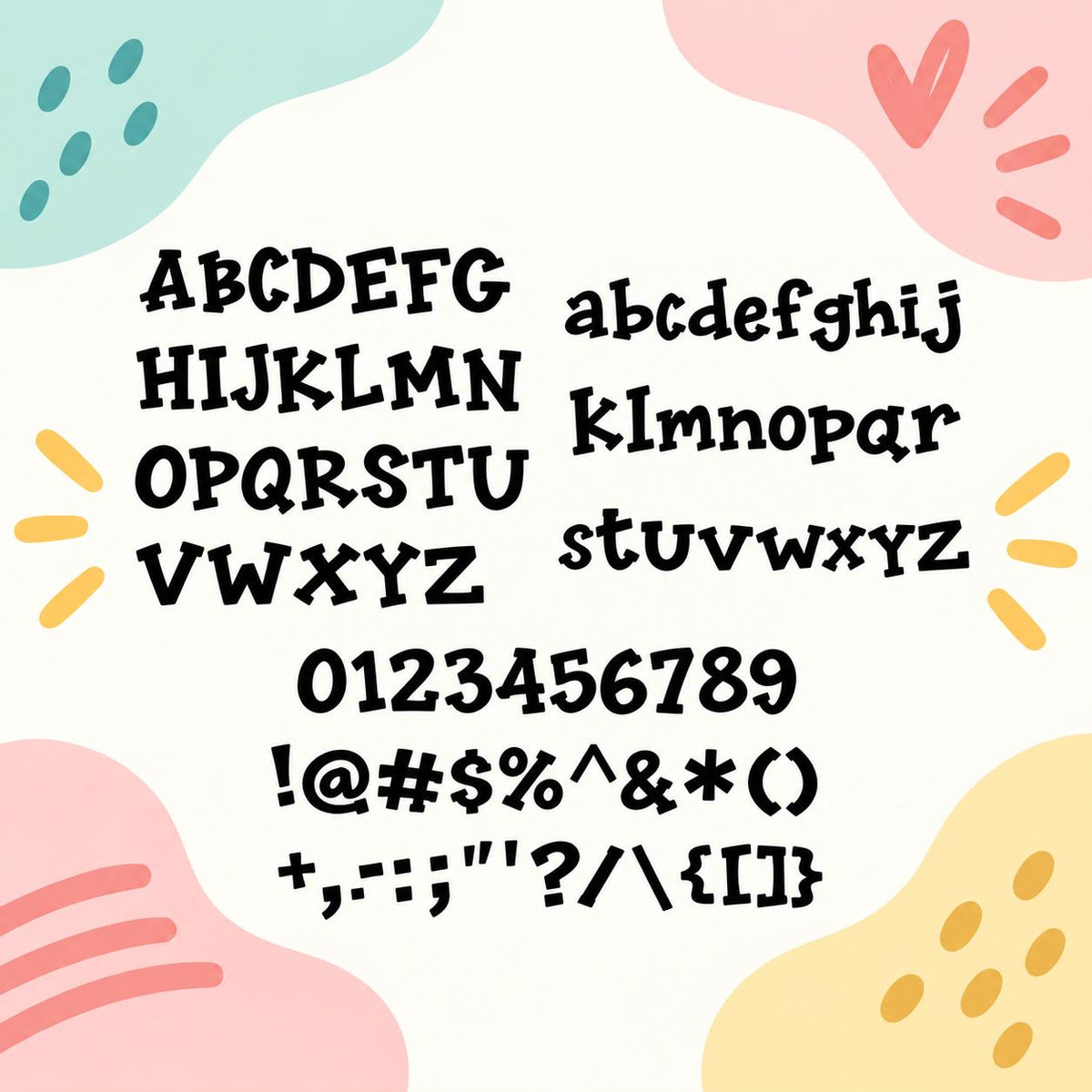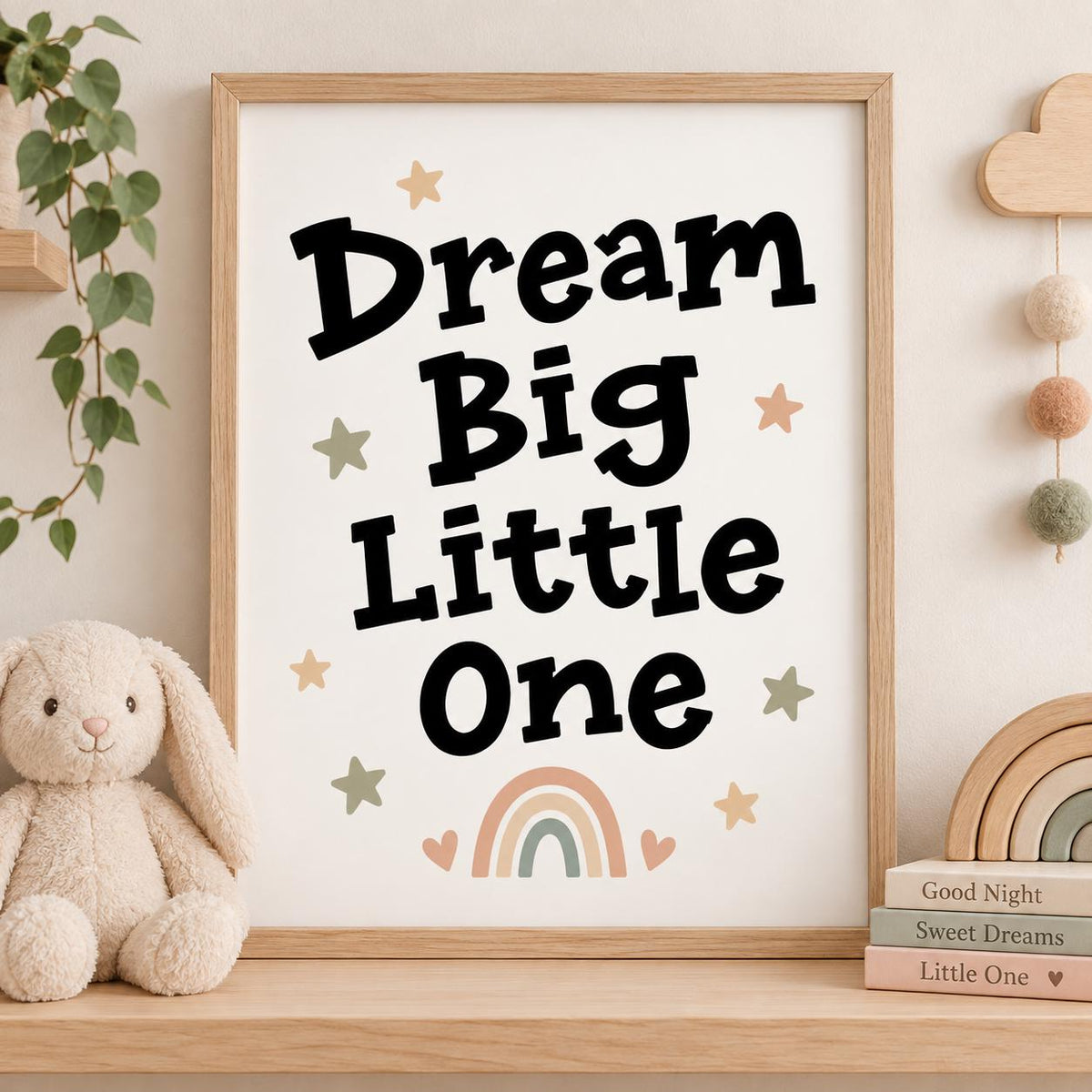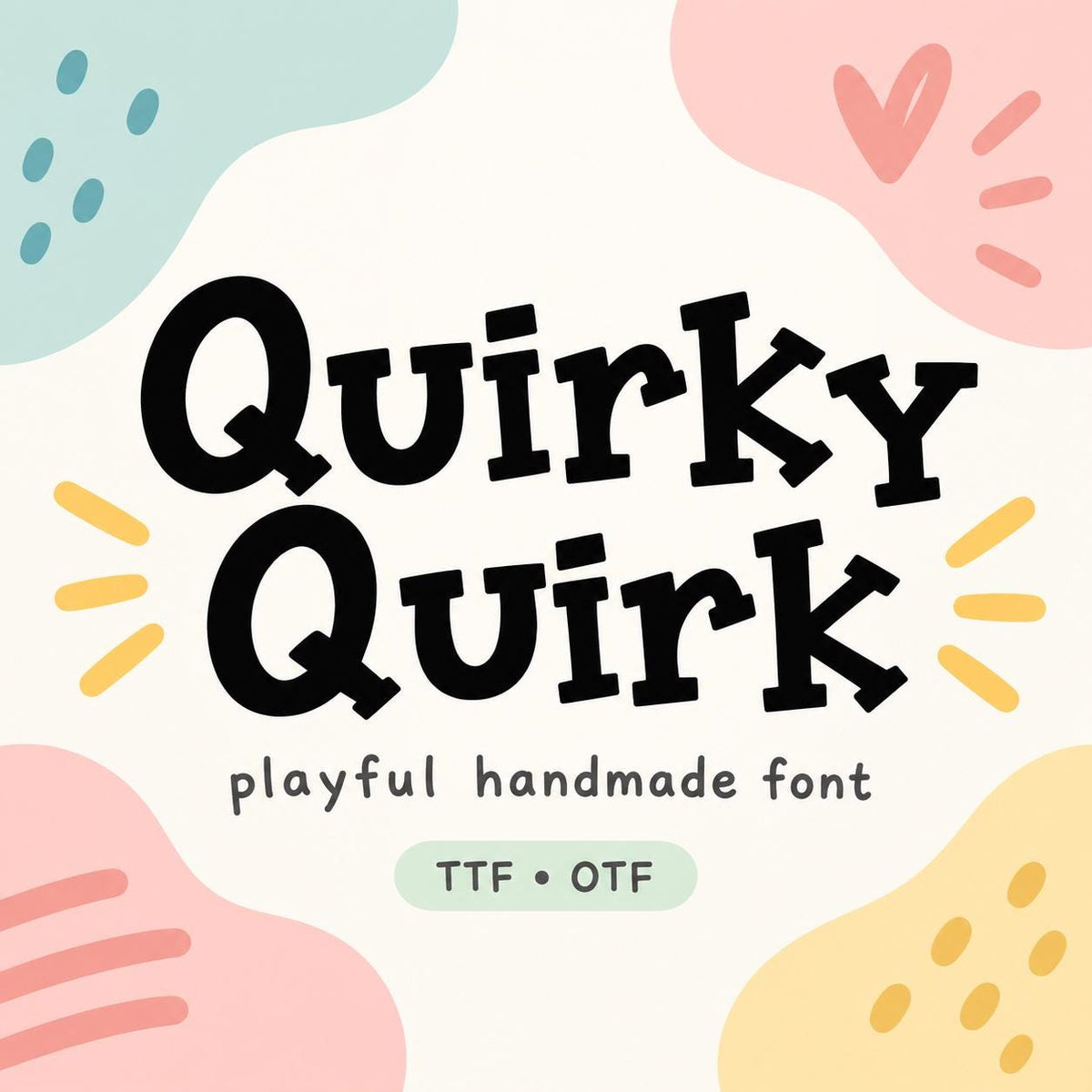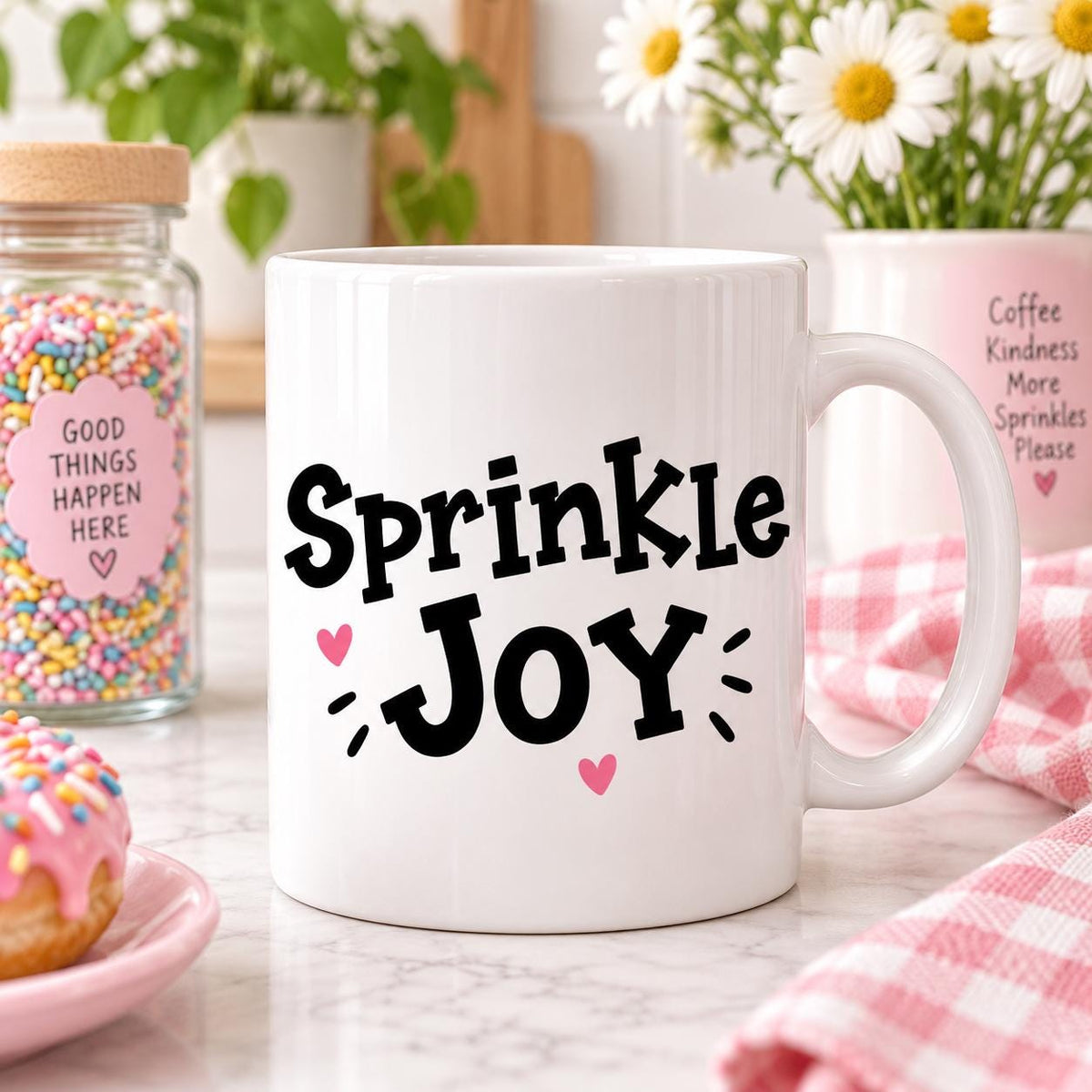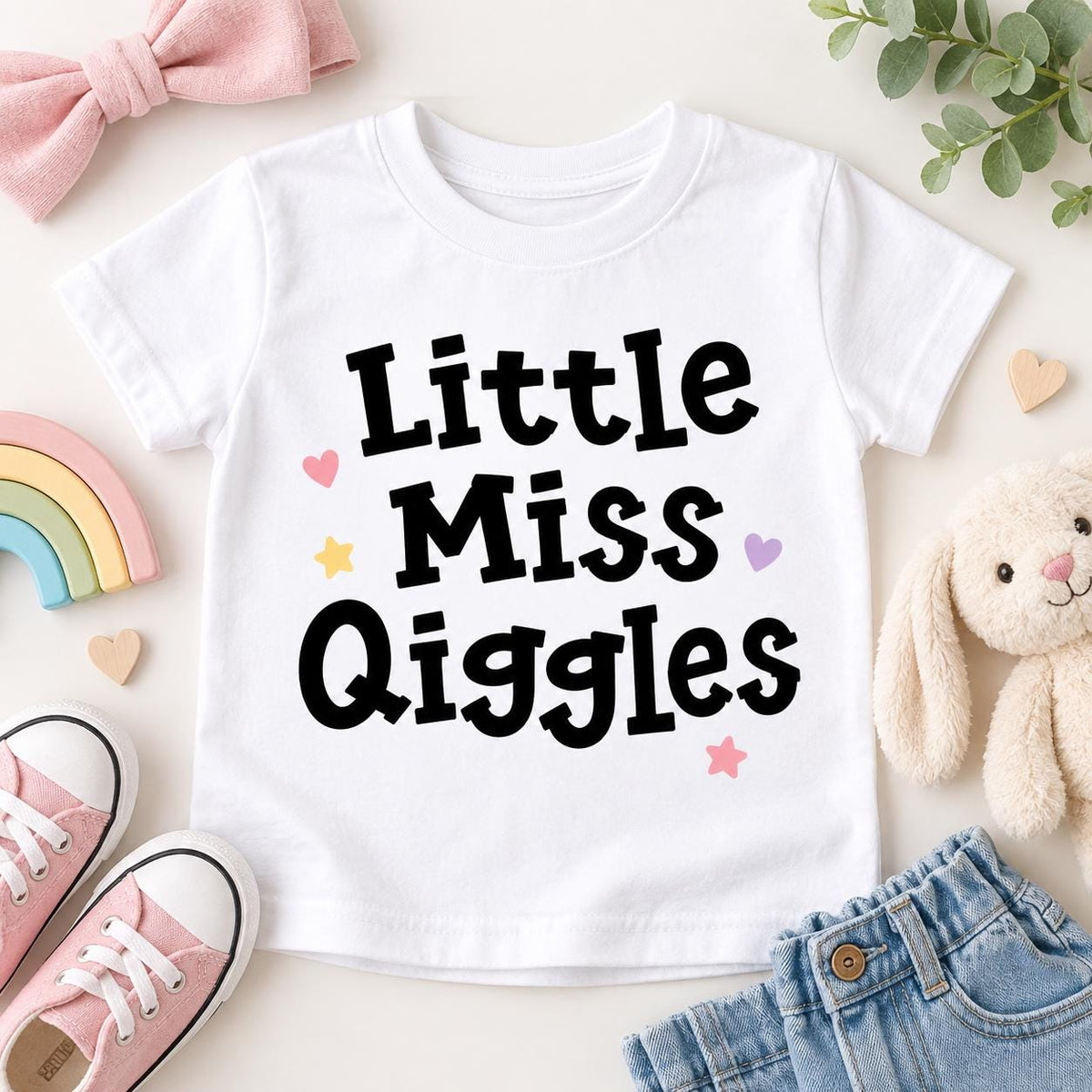
Quirky Quirk Font TTF OTF | Playful Hand-Drawn Cricut Font
Give your crafts a fun, imperfect handmade personality with Quirky Quirk — a playful display font bursting with crooked lines, uneven shapes, and charming quirky letterforms. Just install the TTF or OTF file, select Quirky Quirk in your design program, and start typing names, phrases, and designs your customers will love.
- Uppercase A–Z & lowercase a–z
- Numbers 0–9
- Special characters & symbols